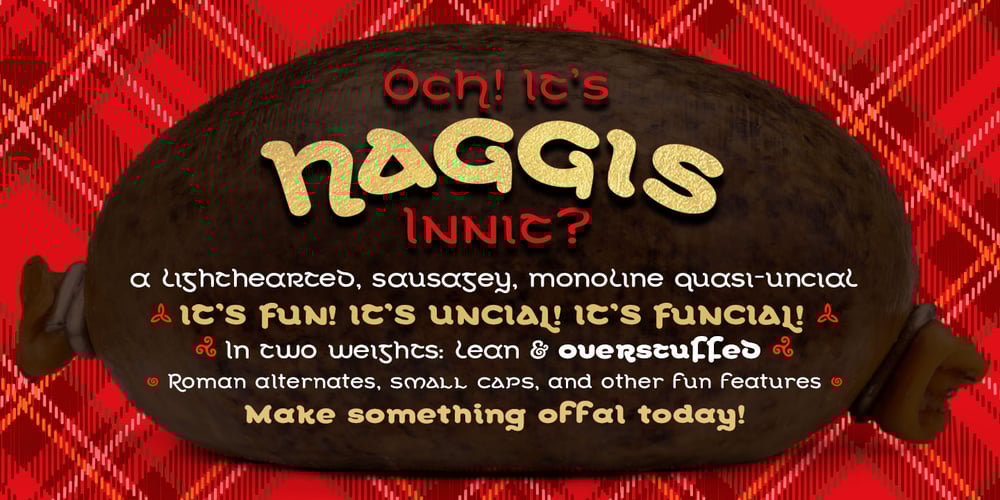
Haggis Font Family was designed by DC Scarpelli and published by The Ampersand Forest. Haggis contains 2 styles and family package options. Meet Haggis! Inspired by the Insular Half-Uncial and Uncial typefaces that have long been associated with Scotland, Ireland, and their Celtic cousins, Haggis is an unusual creature. Unlike traditional Uncials, he’s monoline, rounded, sausagey, and distinctly lighthearted! Use him for posters, signage (especially pub signs!), kids’ stuff, and packaging — anyplace a little quasi-Celtic flavor is desired, but with a fun twist. Must we say it? He’s a Funcial!Tongue-in-cheek though he may be, Haggis has some great features. He comes in Lean and Overstuffed forms, and has full true small caps, standard(ish) Roman alternates for the more out-there characters, lots of ampersand forms (including a true[ish] “Et” and a Tironian and), fun quasi-Celtic bullets, and lots of ligatures.Try him out today — with some tatties and neeps!